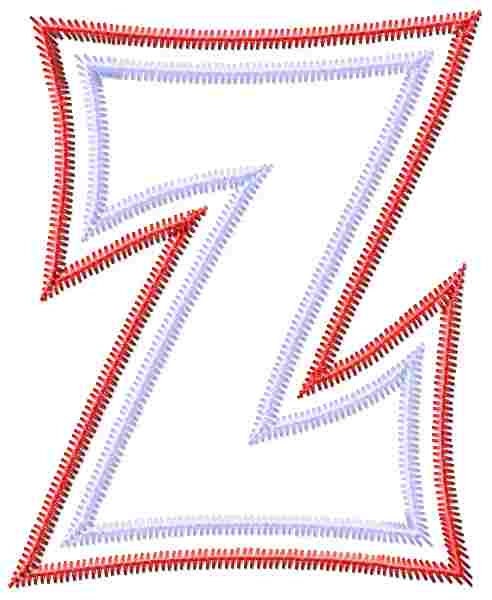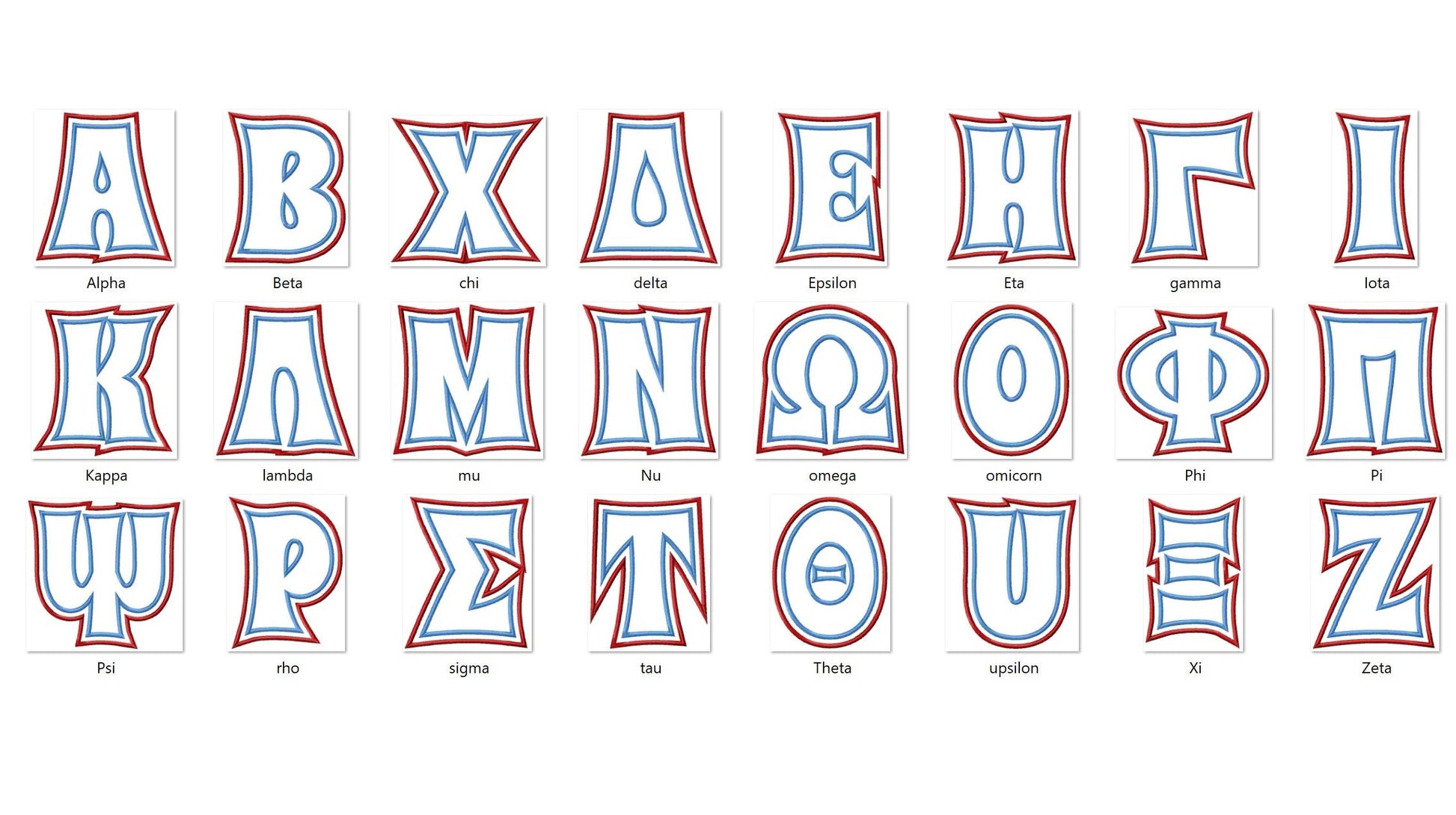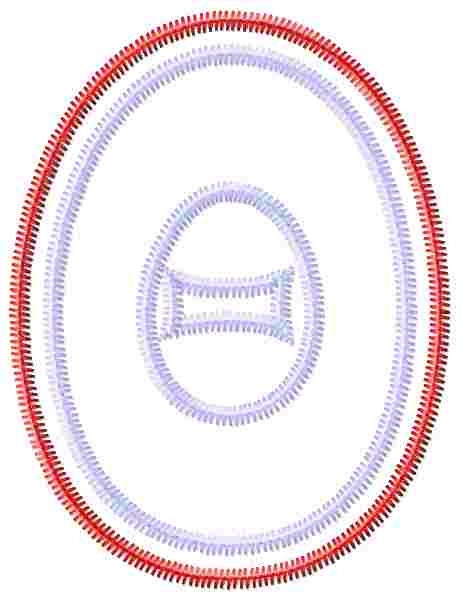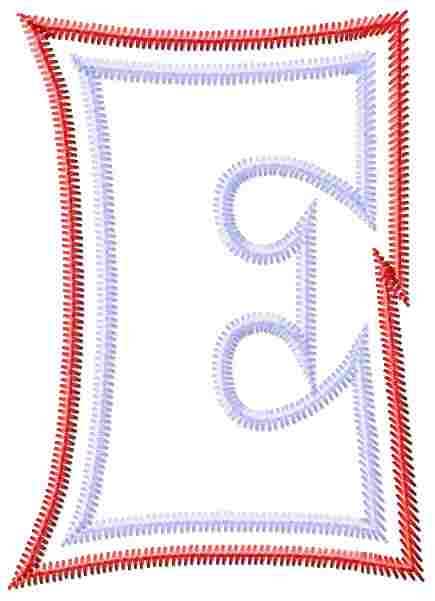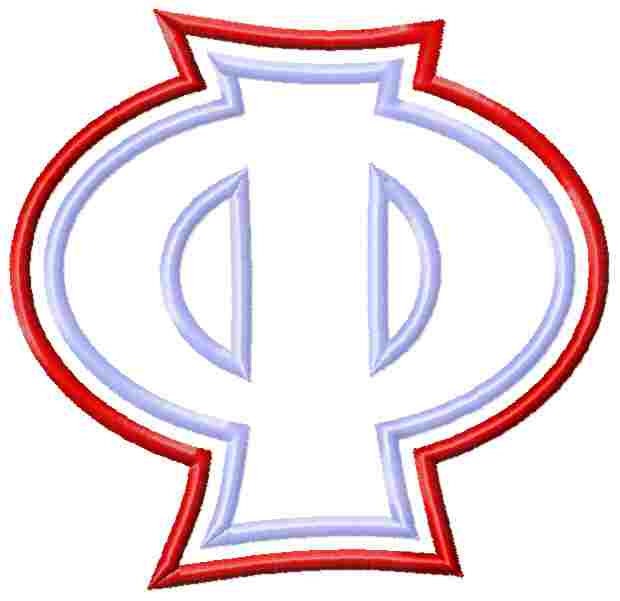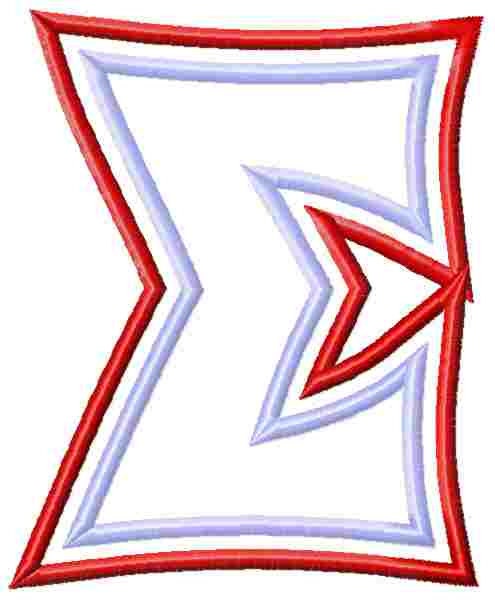
2 Layers Sororities Fancy Greek Font
Or click to open the linkA fancy Greek alphabet as a two-layer applique font, for sorority and fraternity letters. Great on jerseys, sweatshirts, bags and pillows.
All 24 Greek letters as a two-step double applique, in four sizes: 3.1, 3.9, 4.7 and 5.1 inches. Two applique edges are included: classic satin stitch and zig zag stitch.
- Whole Greek alphabet, 24 fancy two-layer applique letters
- 2 edge styles: satin and zig zag
- 4 sizes, 3.1 to 5.1 in